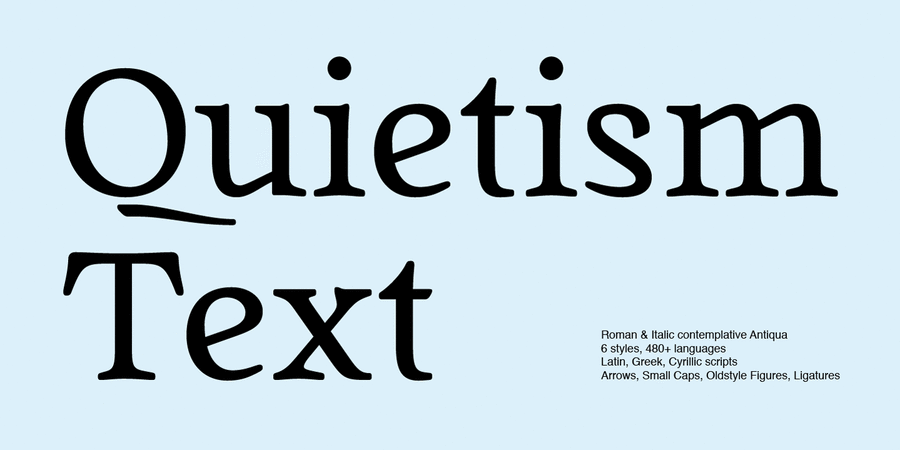
1 of 11 font specimen ukrainian old-style serif Quietism Text from Michael Rafailyk, with Cyrillic and Latin, Greek, Kazakh
Quietism Text – font subfamily for body text use. Quietism is a smooth contemplative Antiqua with aspiring to the sky ascenders, inspired by the Quietism philosophy. Clarity of the mind is achieved by bringing the body into a state of calm and contemplation, and this is reflected in the design – the quiet horizontal serifs (body) are opposed to the peaky soaring ascenders (mind). The design also features four optical size subfamilies with different x-height and contrast, oldstyle diagonal stress axis, oldstyle figures by default, smooth details and slightly dark texture. Styles: 42. Thin, Light, Regular, Medium, Bold, Black weights. Roman and Italic. Optical sizes: Text, Deck, Display, Poster subfamilies. Variable fonts: Roman and Italic styles. Weight, Contrast, X-Height axes. Scripts: Latin, Greek, Cyrillic. Languages: 480+. Glyphs: 1845. Kerning: 4553 class-to-class pairs. Hinting: Manual PostScript for static fonts. Format: OTF – OpenType PostScript, and TTF – OpenType with TrueType outlines for Variable fonts. OpenType Features: Optical Size: The typeface is represented by four subfamilies: Text (low contrast, high x-height – for paragraph 10-20 pt), Deck (medium contrast, medium x-height – for subheading 20+ pt), Display (high contrast, medium x-height – for heading 72+ pt), Poster (high contrast, low x-height – for big size 120+ pt). Variable Font: Quietism Variable is represented by Roman and Italic separeted files and has three axes: Weight (Thin–Black), Contrast (Low-High), and X-Height (Low-High). Variable fonts provides more options than static fonts and includes thousands of styles that you can access using a sliders on graphic editor or via CSS on web browser. Mixing different axes gives you extra styles not represented by static fonts. Small Caps: Lowercase letters and Oldstyle Figures are replaced with Small Capitals forms. Capitals to Small Caps: Uppercase letters, all figures, and some punctuation are replaced with Small Capitals forms. Case Sensitive Forms: ()[]{}‹›«»-–—•·#%‰@ and Arrows are centered on capitals. Oldstyle figures are replaced with Lining figures. Oldstyle Figures: 0123456789 #%‰. Designed to work with lowercase letters. Used by default. Lining Figures: 0123456789 #%‰. Figures are the same height as uppercase letters (cap height). Proportional Figures: Lining, Oldstyle, Small Caps, Capitals to Small Caps. Tabular Figures: Lining, Oldstyle, Small Caps, Capitals to Small Caps. Ordinals: adehnorst. Superscript, Subscript, Numerator, Denominator: 0123456789. Fractions: ¼½¾⅐⅑⅒⅓⅔⅕⅖⅗⅘⅙⅚⅛⅜⅝⅞⅟ (precomposed). Any other fractions (even those typed through a slash) will also be displayed correctly, with the automatic replacement to Numerator + fraction + Denominator. Slashed Zero: All 0 figures. Contextual Alternates: Number sign character (#) before uppercase letters is replaced by its version centered on capitals. Hyphen character (-) between two uppercase letters is replaced by its version centered on capitals. First of two TT letters is replaced by its alternate form. Letters vwy before the letters fijmnprtuvwxy are replaced with an alternate shorter versions that fits better in the context. Contextual Alternates (Greek): ΆΈΉΊΌΎΏ. Greek uppercase accented characters lose their tonos accent and retain only dieresis in All Caps and Small Caps modes. Turned on by default. If you need tonos accents in All Caps then turn off Contextual Alternates (calt) feature. Stylistic Alternates: FTГТИЦЩцщ and their versions with diacritical marks. Stylistic Set 01 “Arrows”: Left <- Right -> Up <| Down |> Left Right <-> Up Down <|> North West <\ North East /> South West . Stylistic Set 02 “Round-Square Cyrillic”: ДИЙЍЛФвгджзийѝклнптцчшщьъю characters are replaced with its Bulgarian or Russian forms. Stylistic Set 03 “Cyrillic Tse Shcha short tails”: ЦЩцщ characters are replaced with its alternate form with short tail. Stylistic Set 04 “Cyrillic I full serifs”: ИЙЍӢ characters are replaced with its alternate form with inner serifs. Stylistic Set 05 “FT bent inward serif”: FTГ characters and their versions with diacritical marks are replaced with its alternate form with right head serif that bent inside. Stylistic Set 06 “Small Caps centered on Capitals”: Small Caps are vertically centered on uppercase letters. Standard Ligatures: fi fl fb ff fh fj fk ffb ffh ffi ffj ffk ffl. Discretionary Ligatures: Th ct st. Localized Forms: 52 character substitutions for Azeri, Bulgarian, Catalan, Dutch, German, Kazakh, Macedonian, Moldavian, Polish, Romanian, Serbian, Tatar, Turkish. Glyph Composition/Decomposition (Diacritics): Full Latin and based Vietnamese set of diacritics (571 characters) precomposed. The promo images used illustration of Ola Rafailyk, painting of Pieter Bruegel the Elder, photo of Rodin's The Thinker at the Musée Rodin. The typeface was designed by Michael Rafailyk in 2022.